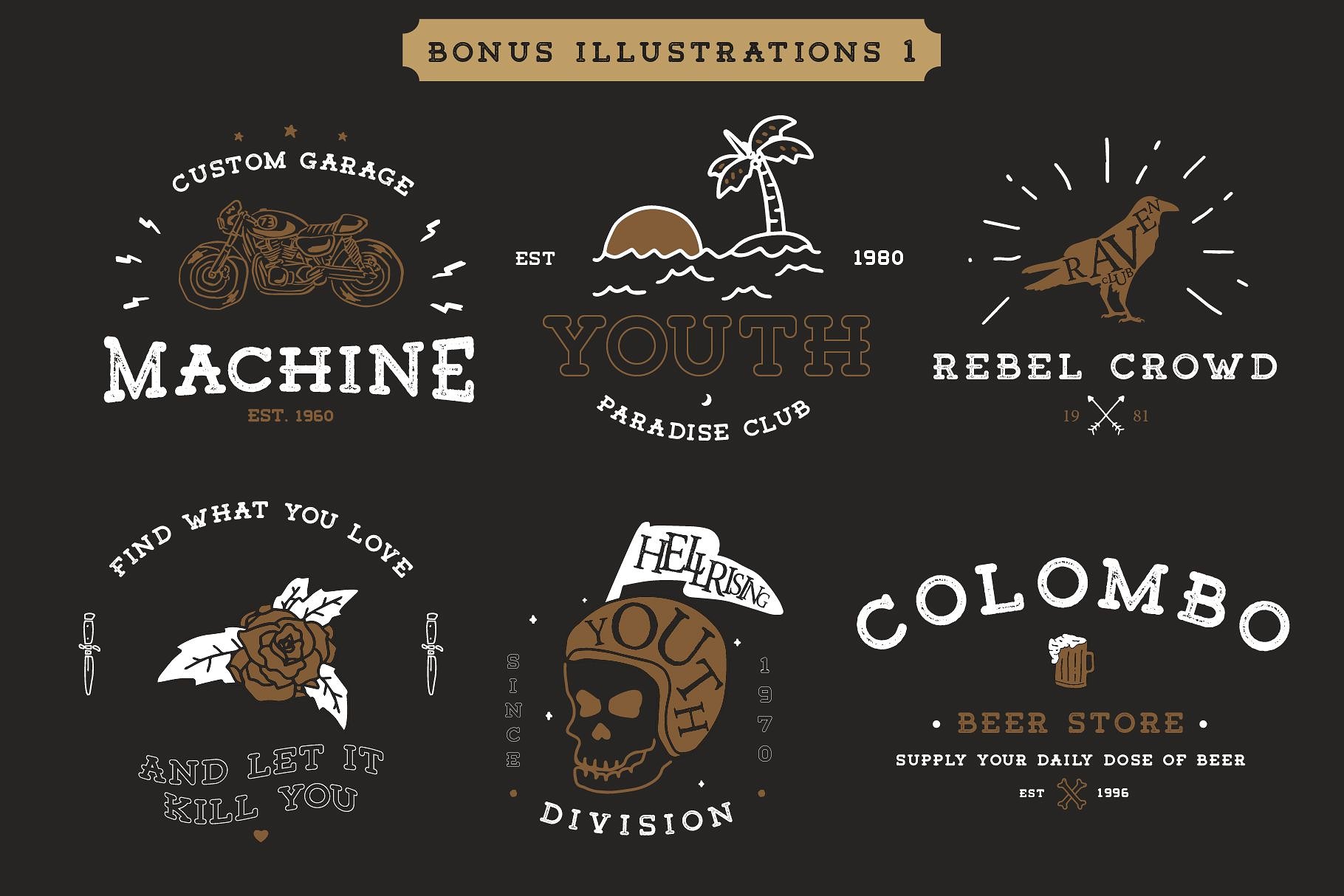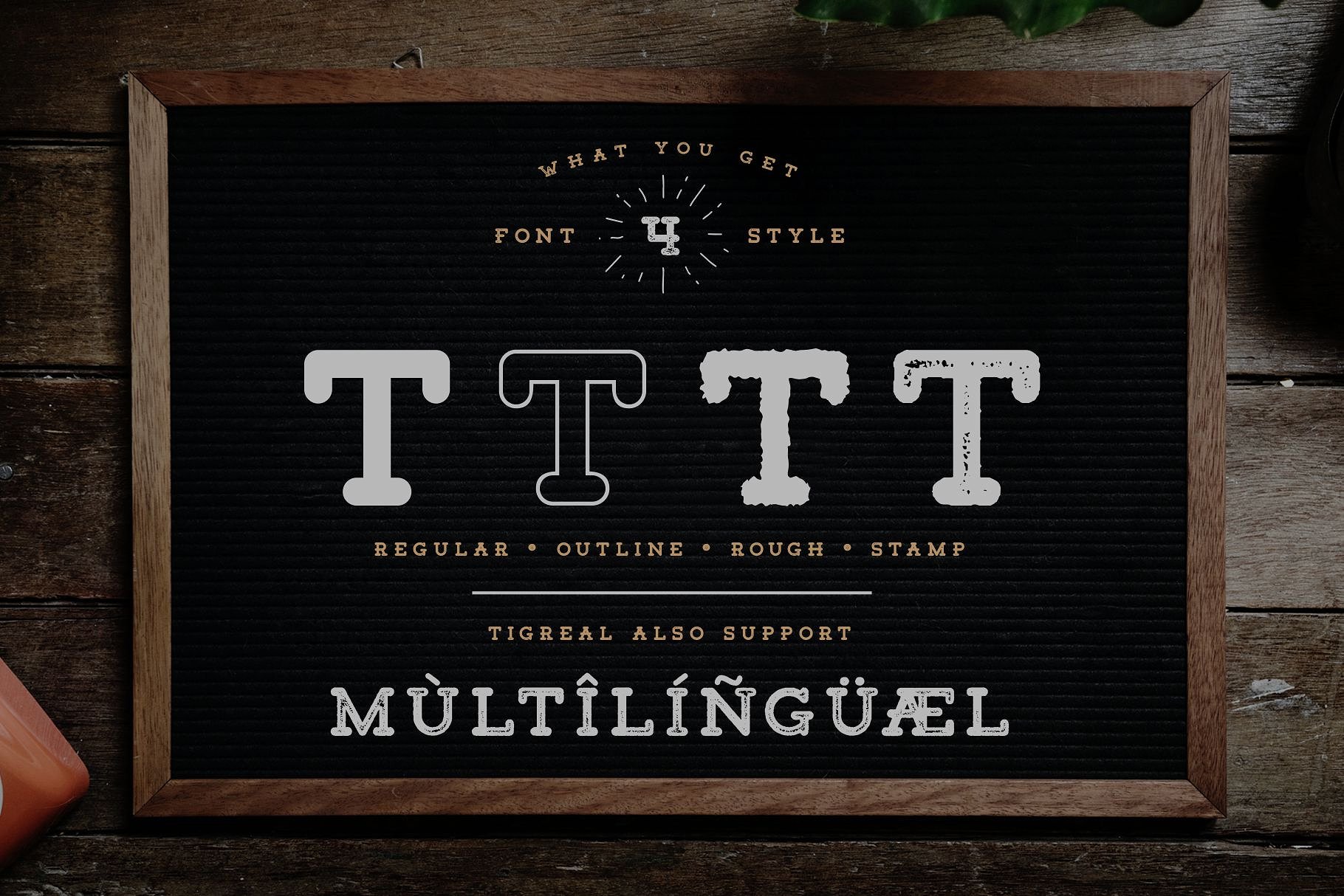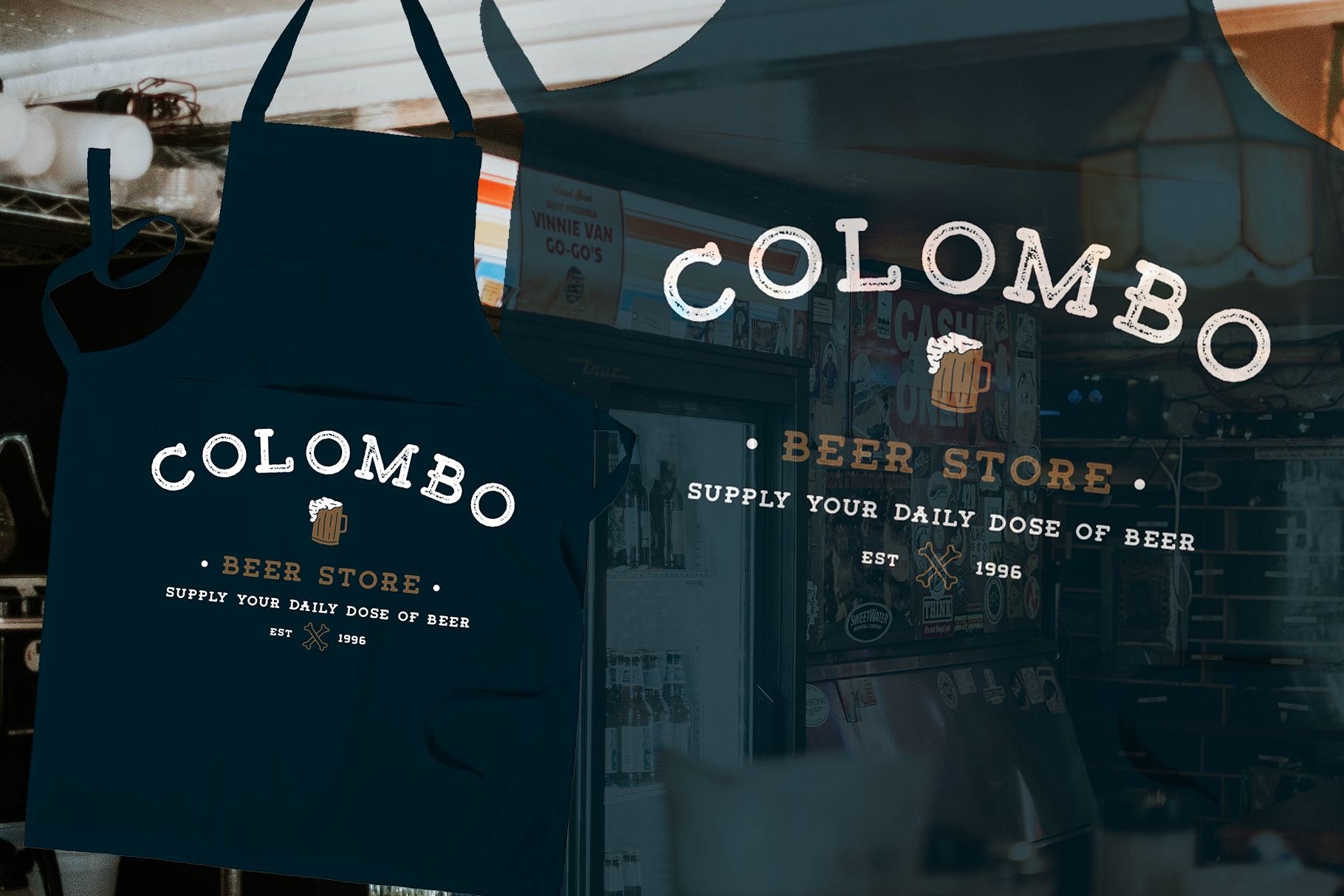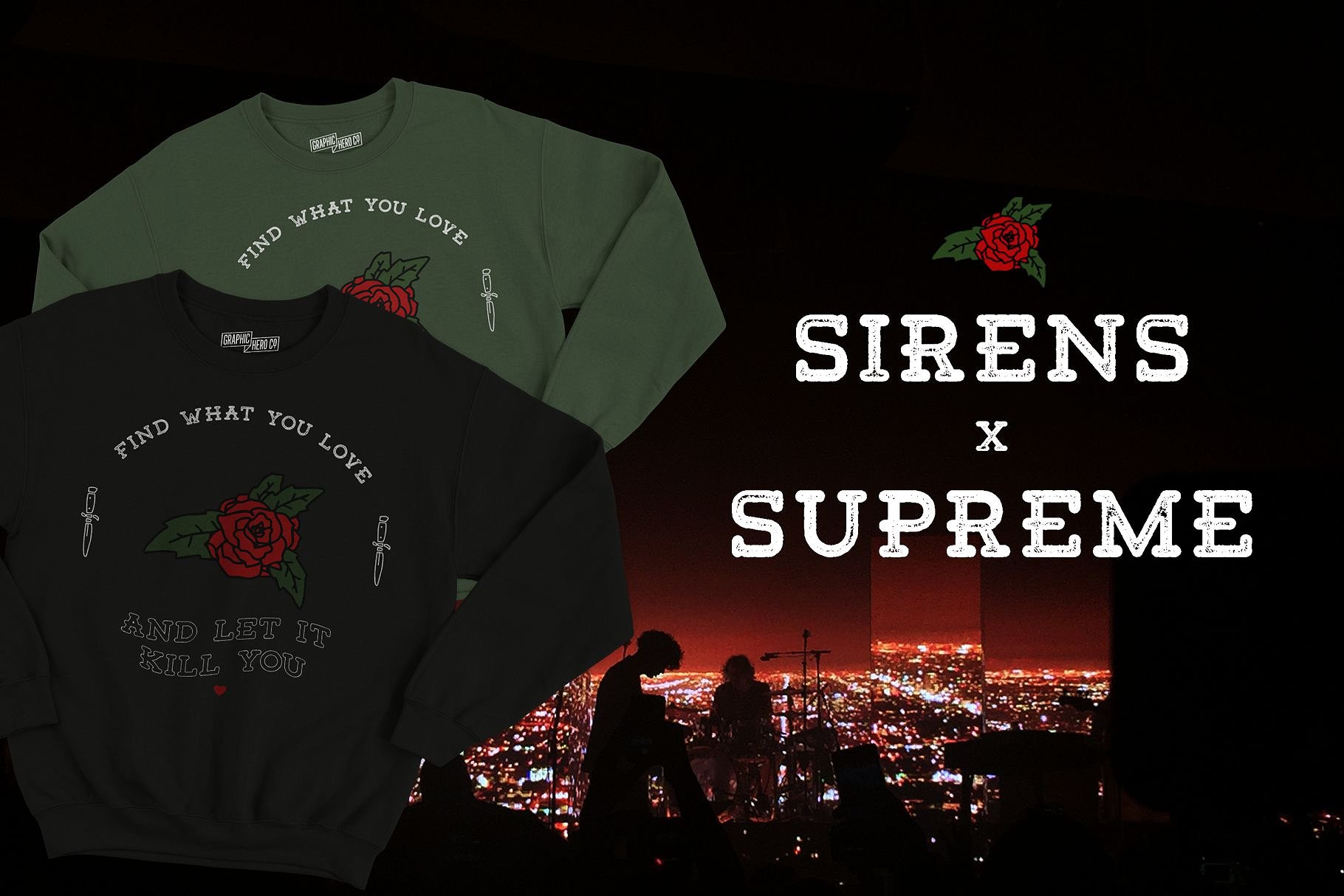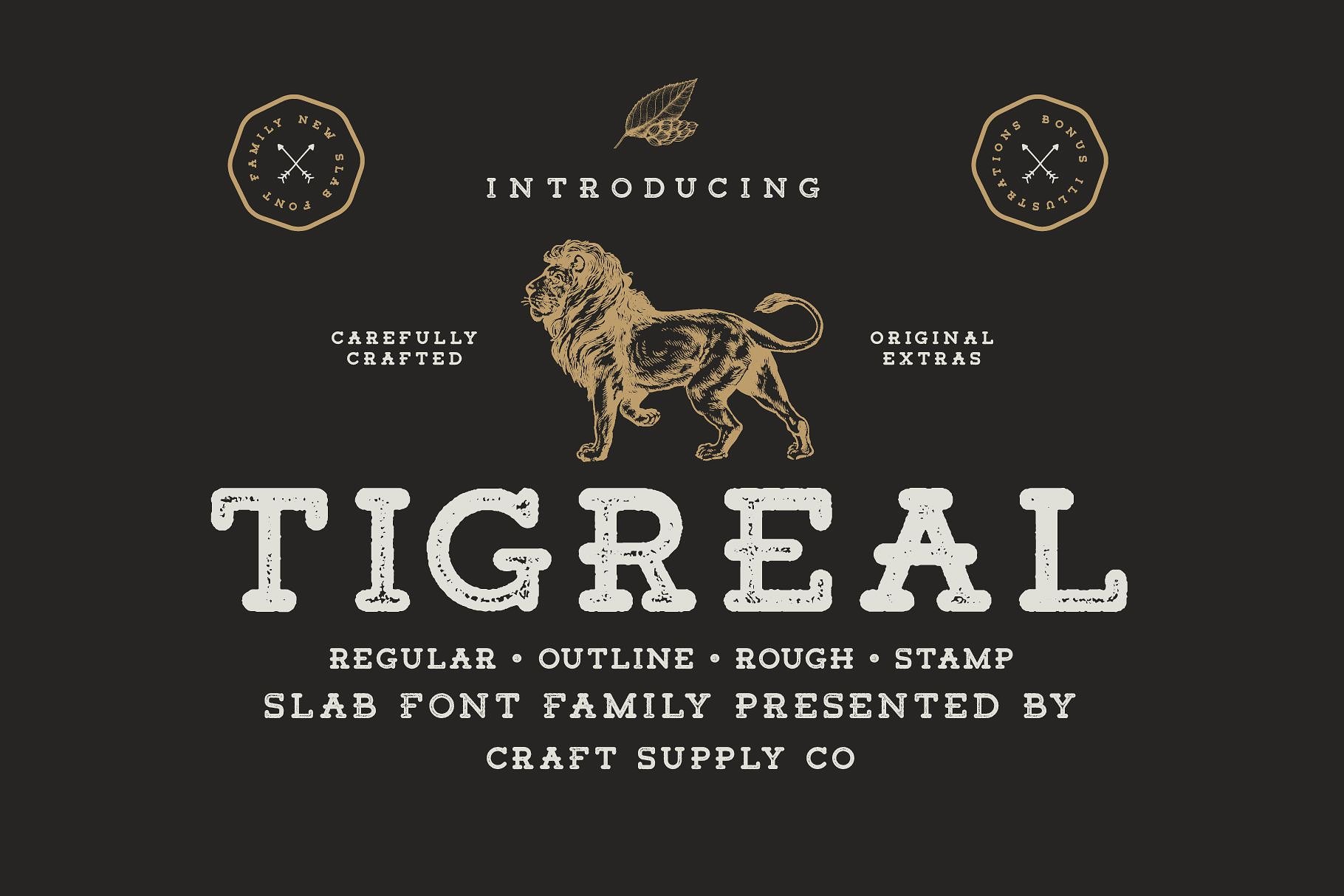
Tigreal Font Family
Hello! A slab font family presented by Craft Supply Co. Introducing Tigreal Font. Tigreal Family + Illustrations includes 4 Style Fonts. It can be used to create almost all types of design projects like print materials. Just use your imagination and some graphic design set in Extras, your project will become more alive and look great than ever with one of the Tigreal Font.